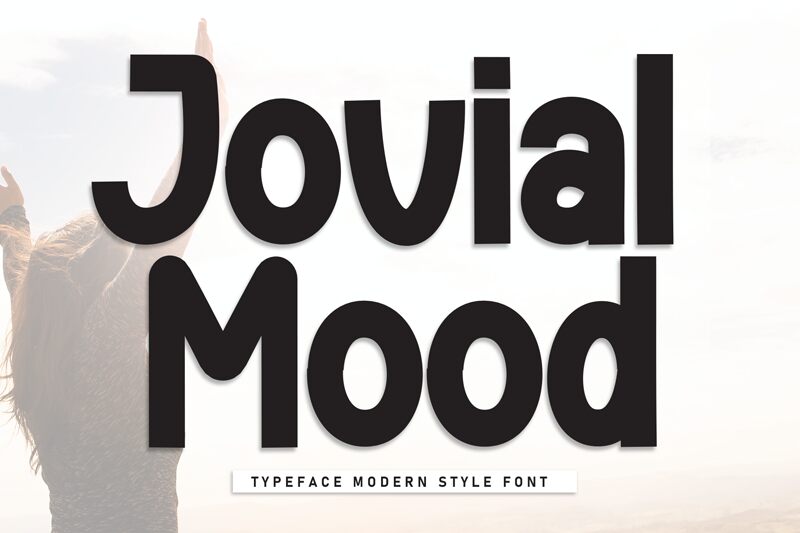
Jovial Mood font by Scratchones is a modern fancy font perfect for headlines, titles, posters, and invitations. The aesthetic achieved here is simple, visually appealing, and mesmerizing to elevate the minimal title or a more sophisticated design. This asset excels best in large text sizes.
Designers can be creative with Jovial Mood as it suits various purposes like banners, logos, web pages, social media covers, stationery, or other branding purposes. Your portfolios, editorial designs, advertisements, brochures, and packaging designs will also enjoy the personal touch and friendliness it delivers.